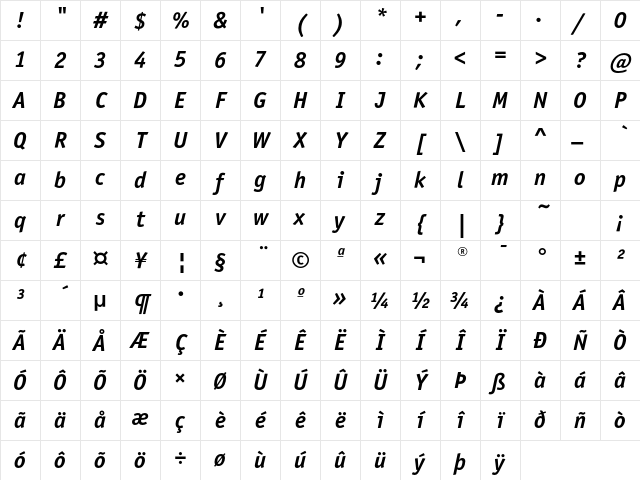
OfficinaSansEF BoldItalic
Design Context for OfficinaSansEF
OfficinaSansEF is a composed and adaptable typeface that performs quietly and consistently across a wide range of design contexts. The slanted form adds forward momentum and visual energy. Its bold stroke weight gives it real presence on the page.
Pro Tip: Use OfficinaSansEF for emphasis, pull quotes, and subheadings where its slanted energy can add rhythm to the layout.